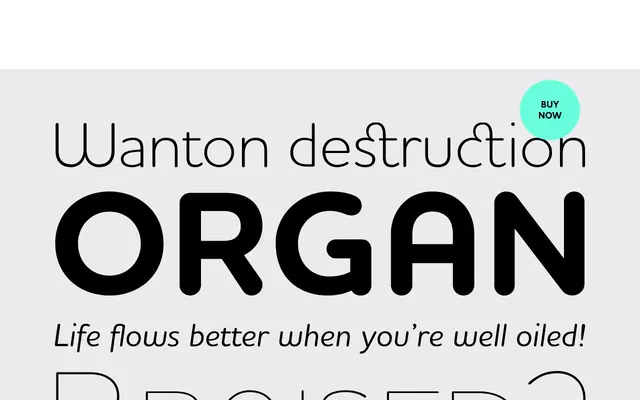
Houschka Rounded
A rounded companion to Houschka Pro with softened terminals and broad language coverage across Latin and Cyrillic scripts, available in 12 styles.
Drawing from the same geometric foundations as Houschka Pro, this family adds rounded terminals throughout for a softer, more approachable character without sacrificing typographic weight and contrast. Twelve styles cover a wide range of weights with italics, and OpenType features include small caps, four sets of numerals, stylistic sets and ligatures. Language support extends to Central and Eastern European, Baltic, Turkish and Cyrillic scripts, making it a practical choice for international campaigns. The family notably served as the centrepiece of Visa's 'Life Flows Better' advertising campaign at the London Olympic Games.
A rounded geometric sans-serif with softened terminals and curves, positioned as a warmer companion to Houschka Pro, placing it firmly in the rounded geometric sans tradition.